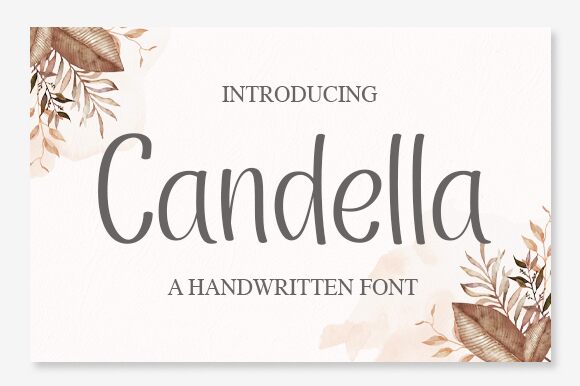
Candella
Candella, the handwritten font created by Graphix Line Studio, is the perfect blend of elegance and simplicity. Its semi-light weight creates a delicate and refined look that adds sophistication to any project. This font is suitable for a variety of projects, from wedding invitations to food menus, and can be used to convey both modern and vintage themes. Its flowing strokes and handcrafted feel make it an ideal choice for designs that require a personal touch. With Candella's unique style, you can add personality and character to your branding materials or create eye-catching graphics that stand out from the crowd.